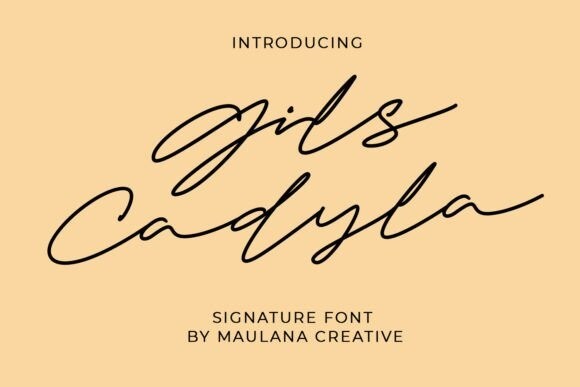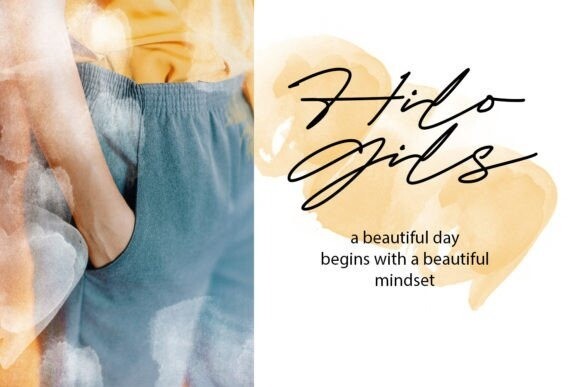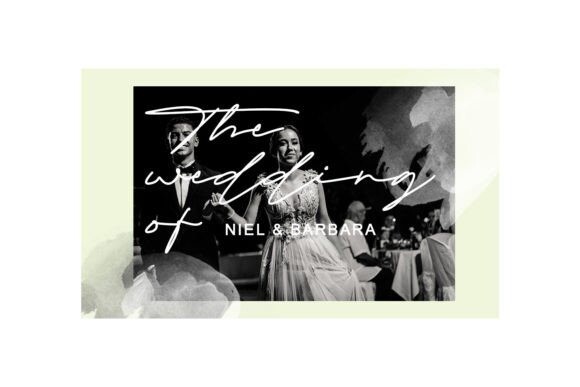
Gils Cadyla Font
Gils Cadyla Font signature script font. This font is good for logo design, Social media, Movie Titles, Books Titles, a short text even a long text letter and good for your secondary text font with signature or script typeface. Make a stunning work with Gils Cadyla font.